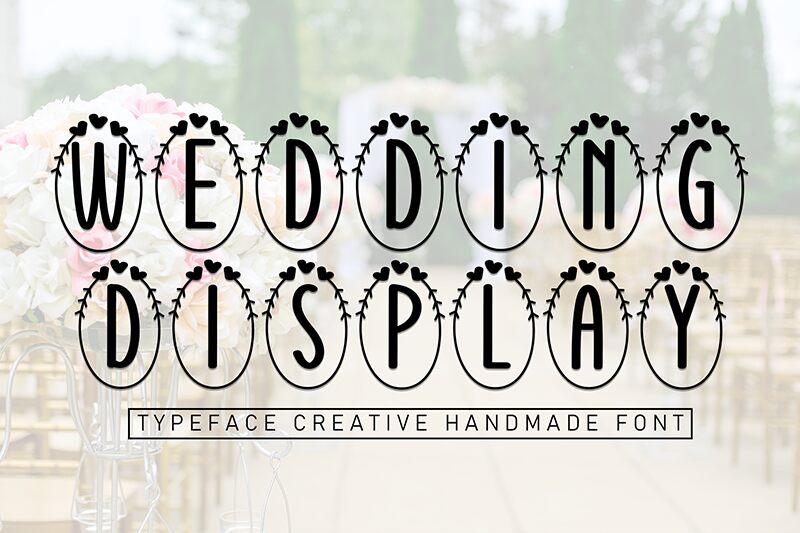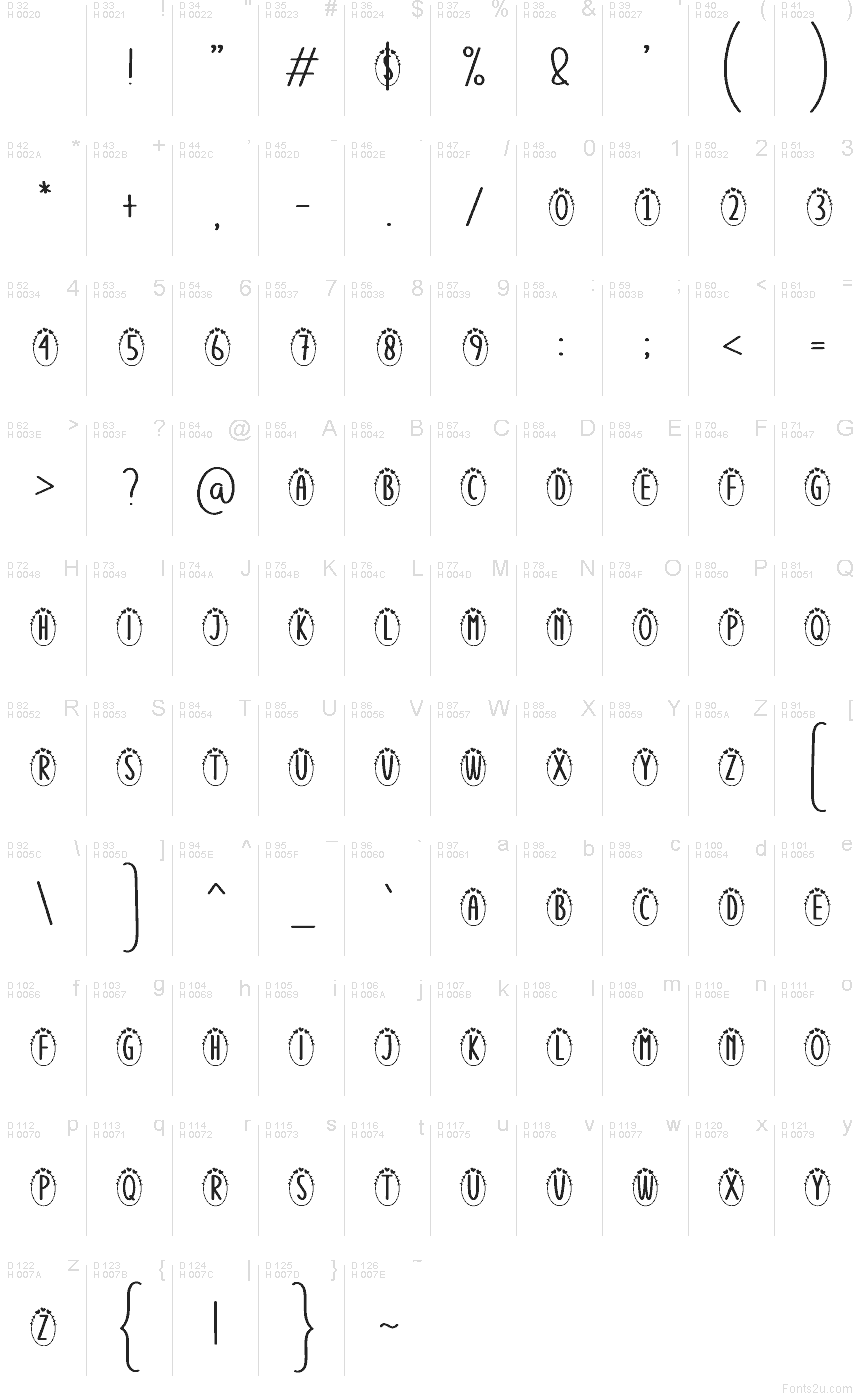
Wedding Display
Wedding Display font by Andi Moz is a free romantic decorative typeface that wraps every letter in a tall, elegant oval frame crowned with tiny hearts. The narrow forms line up like a row of candlelit lanterns, giving text a delicate, ceremonial feel that reads clearly even with all the ornament. Soft curves, subtle serifs, and the dotted heart details make it feel hand-touched—sweet without being sugary.
Using Wedding Display, your headlines instantly feel made for vows, love notes, and celebrations. This free font shines on wedding invitations, save‑the‑date cards, Valentine’s Day promos, bridal shower signage, gift tags, and greeting cards. It also works beautifully in social media graphics for romantic events and boutique branding. For balance, pair Wedding Display at a large size with a simple sans serif body font, letting these charming frames and hearts take center stage.